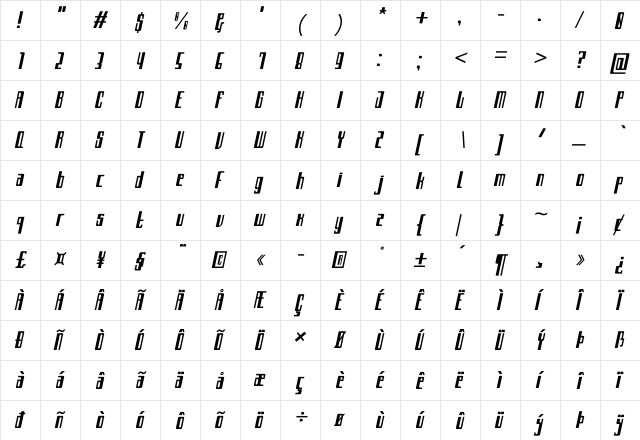
Archimate Italic Regular
Design Context for Archimate Italic Typeface
Archimate Italic offers clean, dependable letterforms without strong stylistic allegiance, making it a practical choice for designers who need flexibility. Its italic angle brings a sense of urgency and motion to the letterforms.
Pro Tip: Use Archimate Italic for emphasis, pull quotes, and subheadings where its slanted energy can add rhythm to the layout.